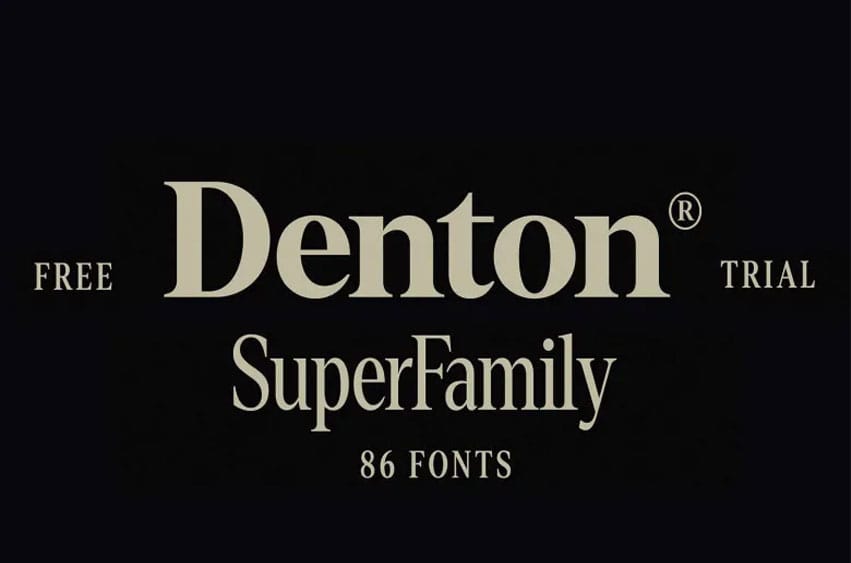
Denton Font is a serif-dominated font designed by Peregrin Studio with distinct graphic style. Full of warmth, Denton brings the expressive 1970s style into modernity.
Denton has now been expanded and now features 86 styles – width and weight variations across display and text subfamilies, as well as true italic counterparts.